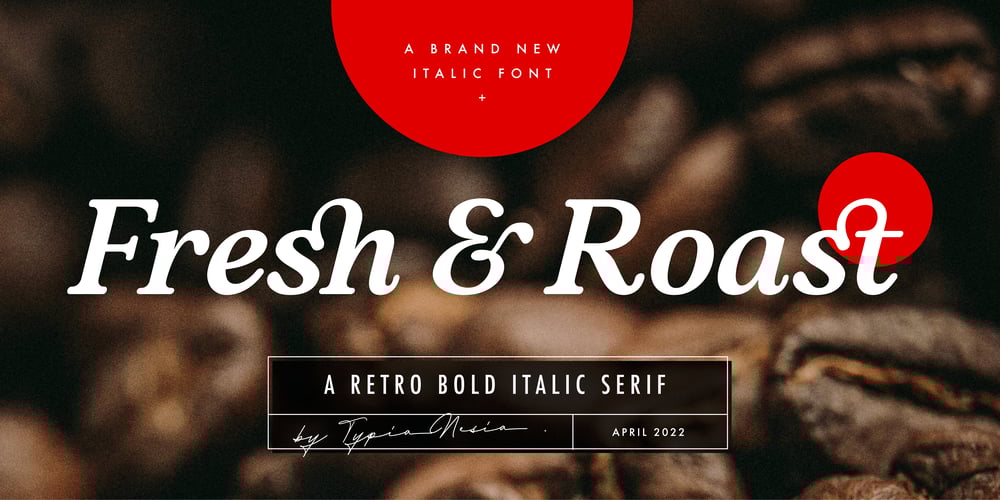
Fresh & Roast
Fresh & Roast font
Fresh & Roast Font Family was designed by Arief Setyo Wahyudi and published by Typia Nesia. Fresh & Roast contains 1 styles and family package options. Fresh and Roast is a bold italic serif. It is suitable for a coffee shop or cafe branding with retro / vintage theme. and it is perfectly to be applied to the other various formal forms such as advertising design, vintage garage design, adventure / mountain hiking brand, animation or movie, poster quote, book / novel cover and any type of advertising purpose.